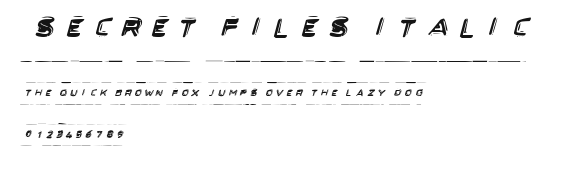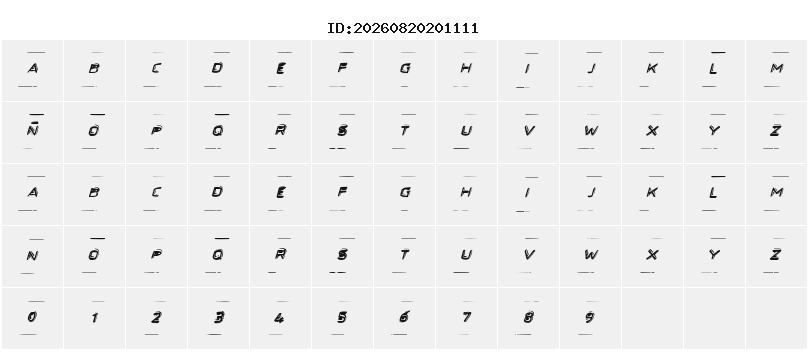
• Font Name: Secret Files Italic
• Full Font Name: Secret Files Italic
About Secret Files Italic.ttf
Secret Files Italic.ttf is a modern, elegant sans-serif font designed for ultimate readability and visual harmony. Perfect for branding, headlines, web design, and print materials.